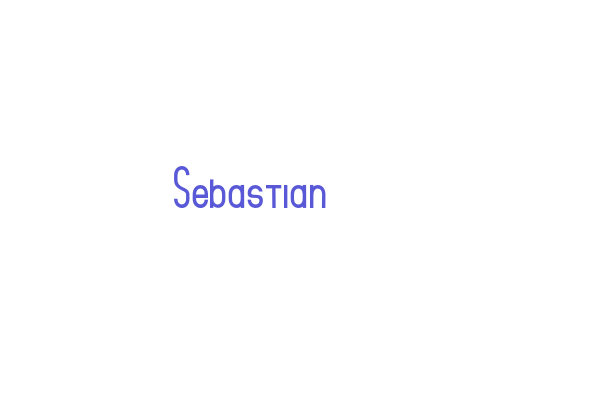
Sebastian is a sleek and modern sans-serif font designed by Gian Studio. With a clean and simple design, this font is perfect for a wide range of projects that require a professional and sophisticated look. Ideal for both print and digital designs, Sebastian is versatile and easy to read, making it a great choice for logos, branding, and editorial layouts.
Font Name: Sebastian
Designer: Gian Studio
Font Family: Sebastian